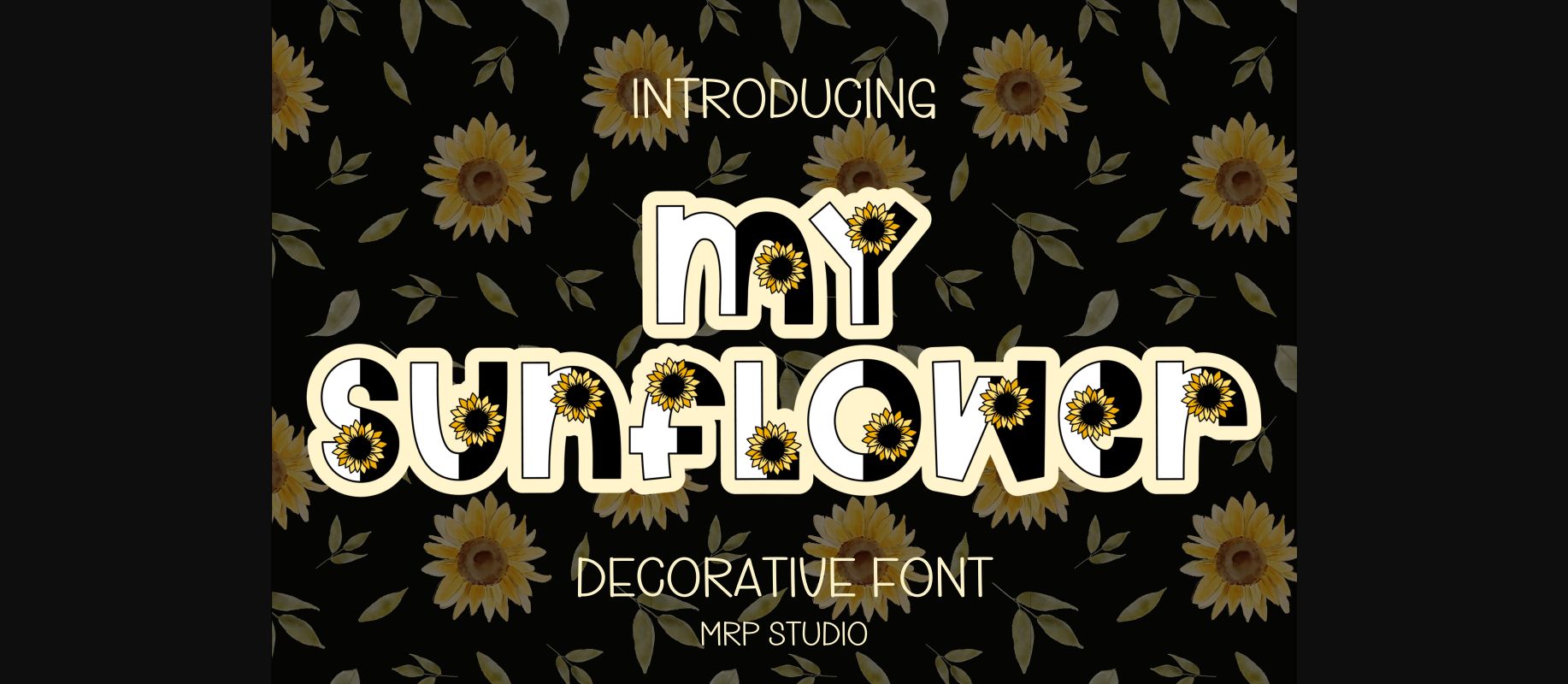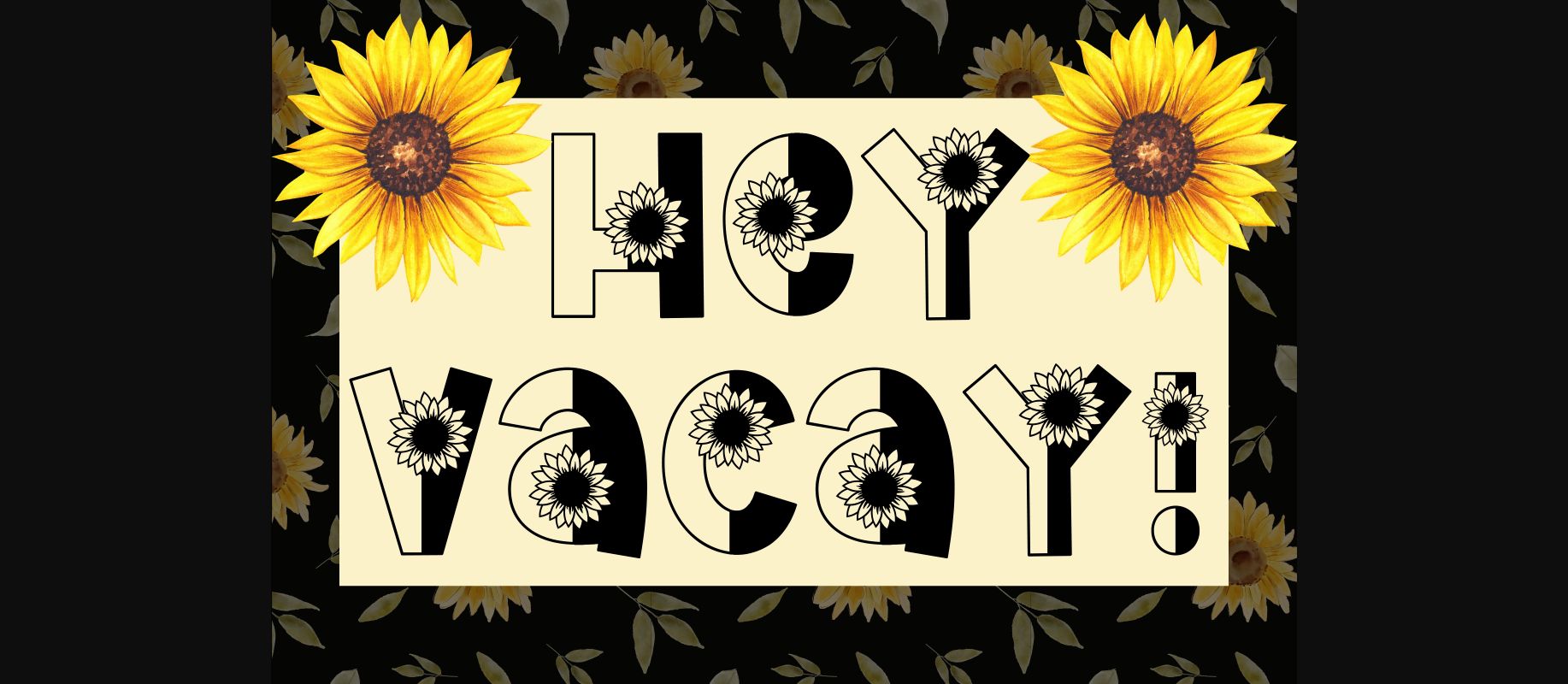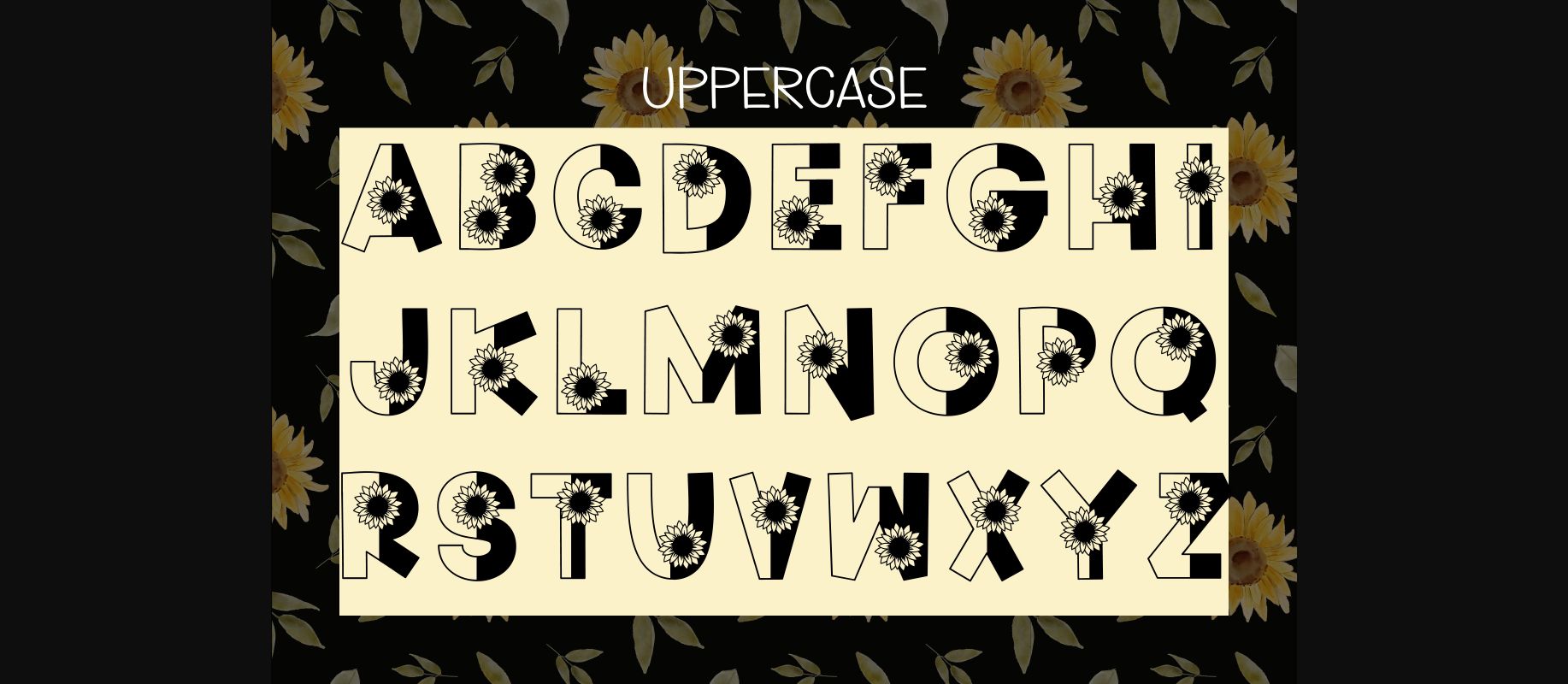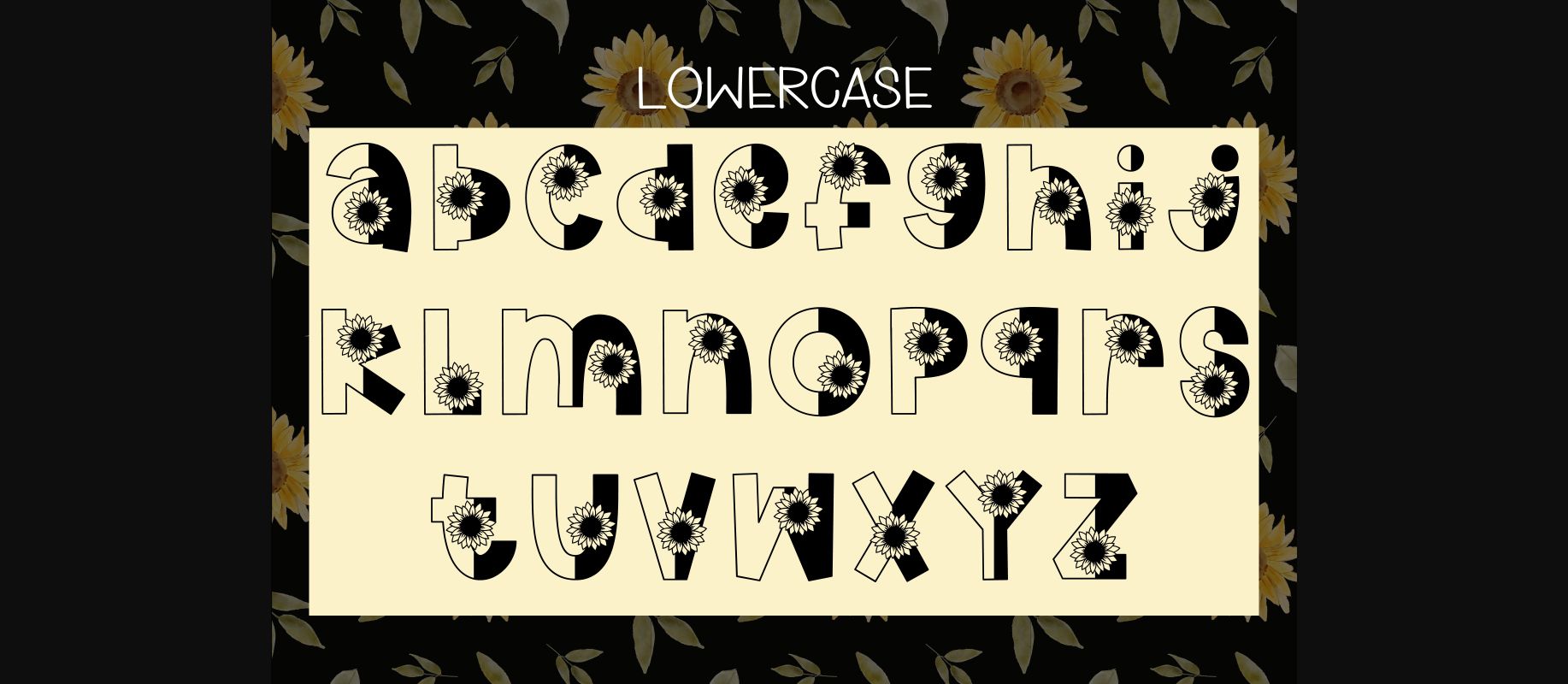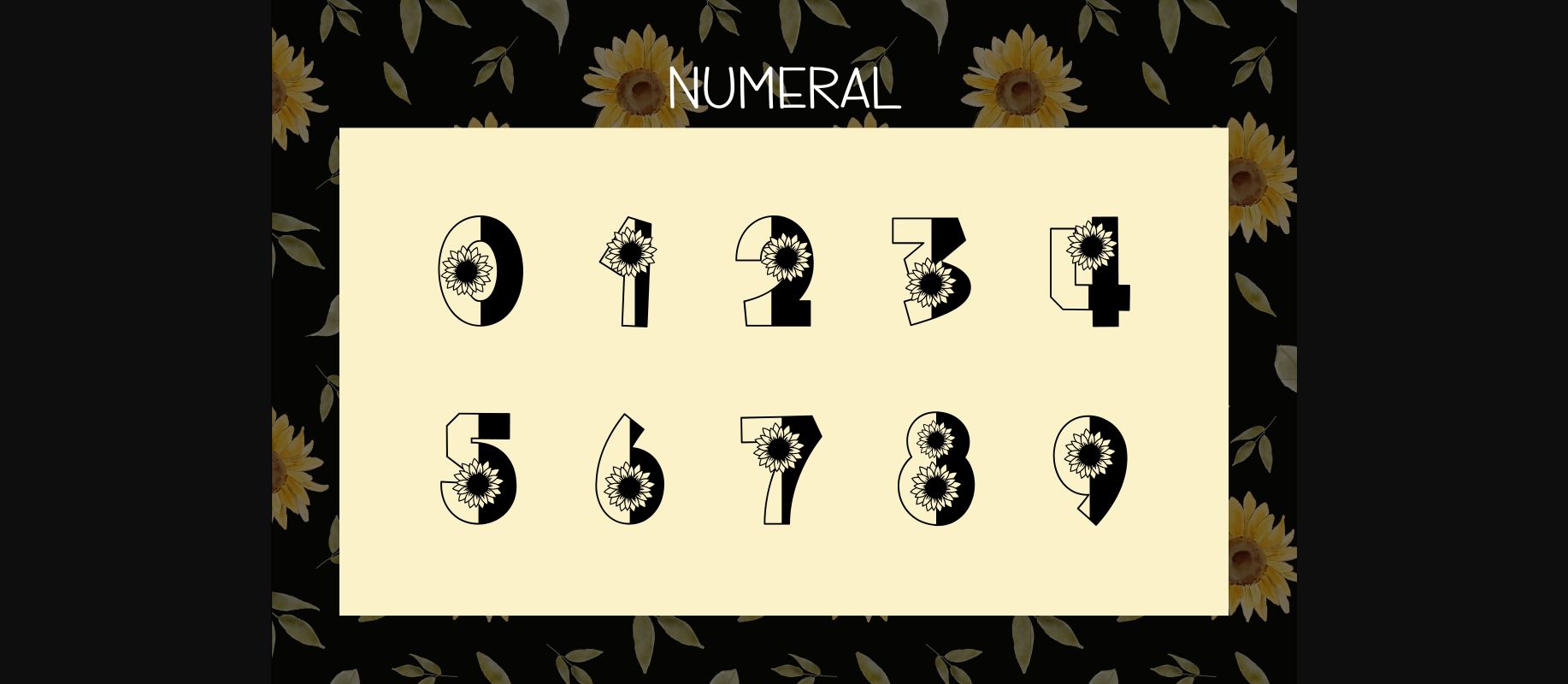
About My Sunflower Font
My Sunflower is a delightful and decorative font that radiates warmth and cheerfulness. Its playful letterforms feature fun and quirky floral embellishments, which lend a touch of whimsy to any design. The font’s round and curvy shapes create a sense of softness and friendliness, making it perfect for anything from invitations to packaging. My Sunflower’s unique and charming style is sure to catch the eye and bring a ray of sunshine to your project.